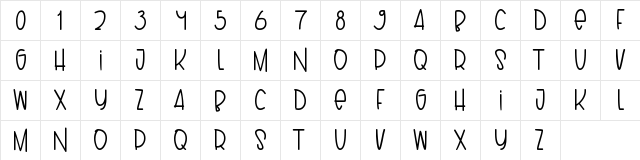
Puppy Regular
Design Context for Puppy Typeface
Puppy offers clean, dependable letterforms without strong stylistic allegiance, making it a practical choice for designers who need flexibility.
Pro Tip: Use Puppy in both headline and body roles to test its range before committing to a single application.